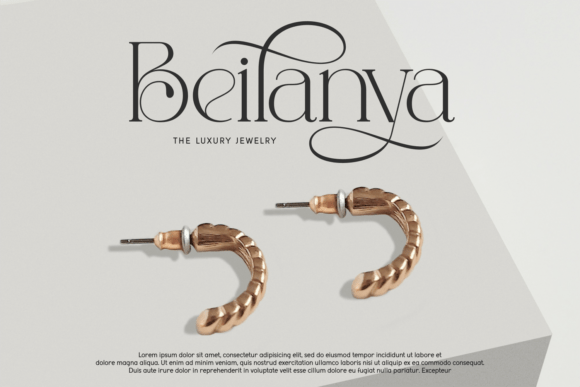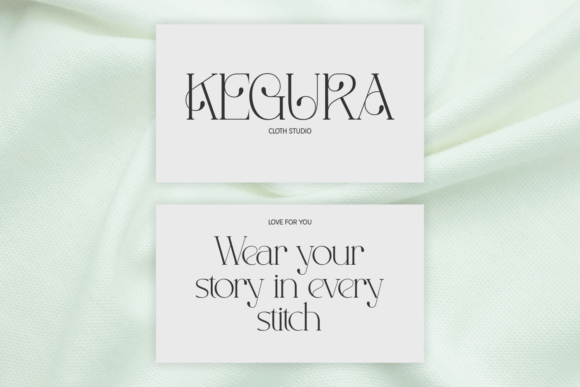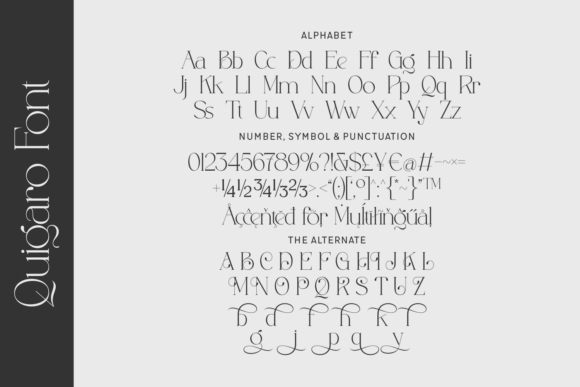
Introduction to Quigaro Font
Have you ever stumbled upon a design that transports you to a world of elegance and sophistication? For me, it’s the sound of a quill pen gliding across parchment, leaving behind a trail of beautiful, flowing script. It’s moments like these that spark a desire to create something truly special – and that’s exactly what the Quigaro Font delivers.
As a valuable resource for designers, the Quigaro Font offers a unique blend of classic and modern elements, making it the perfect choice for high-end branding, wedding invitations, and other creative projects. Its stunning alternate letterforms feature beautiful calligraphic swashes, adding a touch of sophistication to any design. Whether you’re working on a design project or simply looking for a high-quality font to enhance your visual content, the Quigaro Font is an excellent choice.
Key Features of Quigaro Font
- Comes in multiple font styles, including bold and regular, to cater to different design needs.
- Unique characteristics include a modern, sleek aesthetic and a wide range of customizable options.
Honest Review: Quigaro Font
As a designer, I’m always on the lookout for unique and versatile design resources to elevate my creative projects. Recently, I stumbled upon the Quigaro Font, and I’m excited to share my thoughts on this free download.
What works well about the Quigaro Font is its sleek and modern aesthetic, making it perfect for a variety of design applications, from branding to digital graphics. The font’s clean lines and minimalist design give it a high-quality feel that’s sure to impress. ✨
- Perfect for creating a modern and sleek design
However, I did encounter a few limitations while using the Quigaro Font. The font family is relatively small, and there aren’t many variations to choose from. Additionally, the font may not be suitable for large-scale print projects due to its digital origins. ⚠️
Overall, I’m impressed with the Quigaro Font’s potential and versatility. While it may not be perfect for every design project, it’s an excellent addition to any designer’s toolkit, especially for those working on digital or web-based creative projects.
The Quigaro Font is commonly used in logo design, branding, and marketing materials. It’s also perfect for creating infographics, presentations, and other visual content. With its high-quality design and transparent background, the Quigaro Font is a valuable design resource for any creative project.